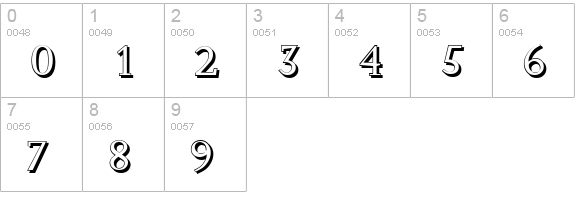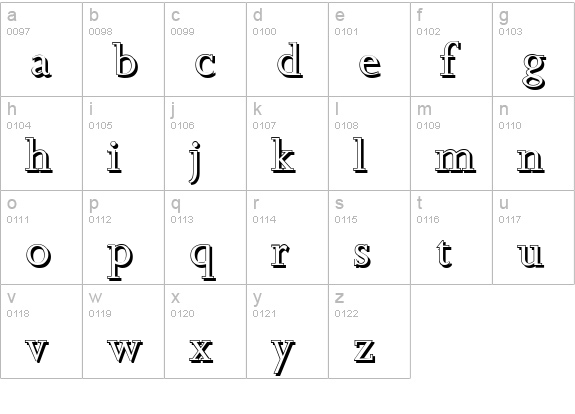
JessicaShadow-Regular is the standard, neutral variant in the JessicaShadow typeface family \xE2\x80\x94 well suited to general body text, paragraphs, and standard typographic work.
JessicaShadow-Regular is a beautifully crafted font that exudes elegance and sophistication. With its delicate shadows and stylish curves, this font is perfect for adding a touch of glamour to any design project. Whether you're working on invitations, branding materials, or social media graphics, JessicaShadow-Regular is sure to make a lasting impression. The best part? JessicaShadow-Regular is completely free to download at FontsMarket.com. This means you can easily access and use this stunning font in your projects without any cost. Don't miss out on the opportunity to elevate your designs with the timeless beauty of JessicaShadow-Regular. Download it today and let your creativity shine!